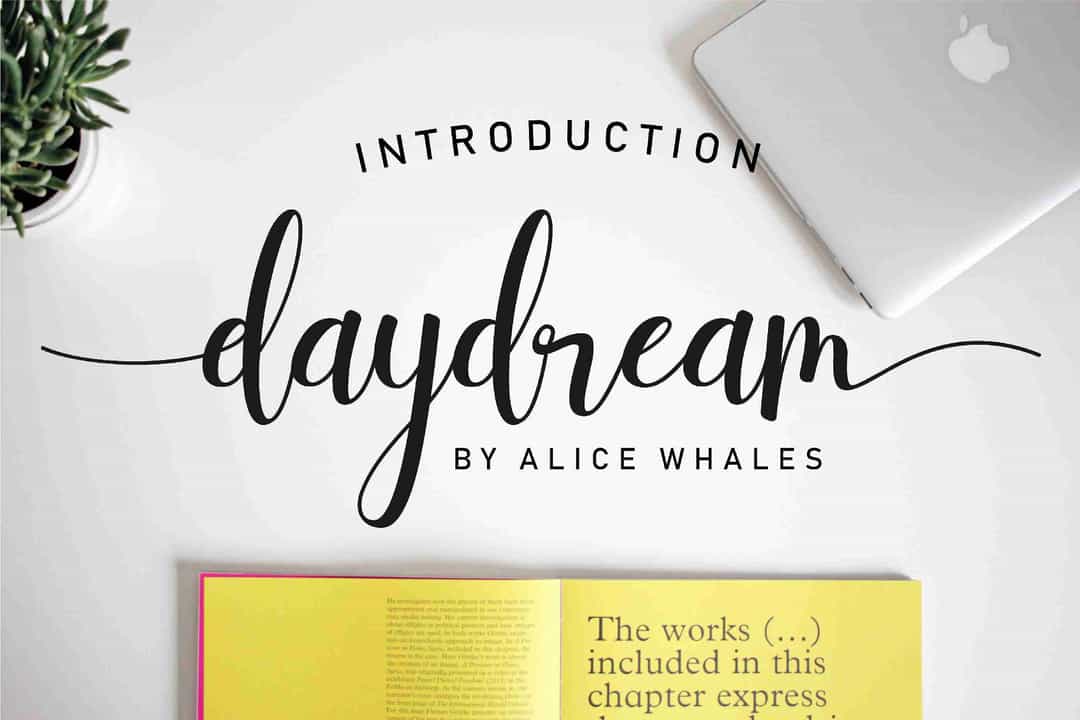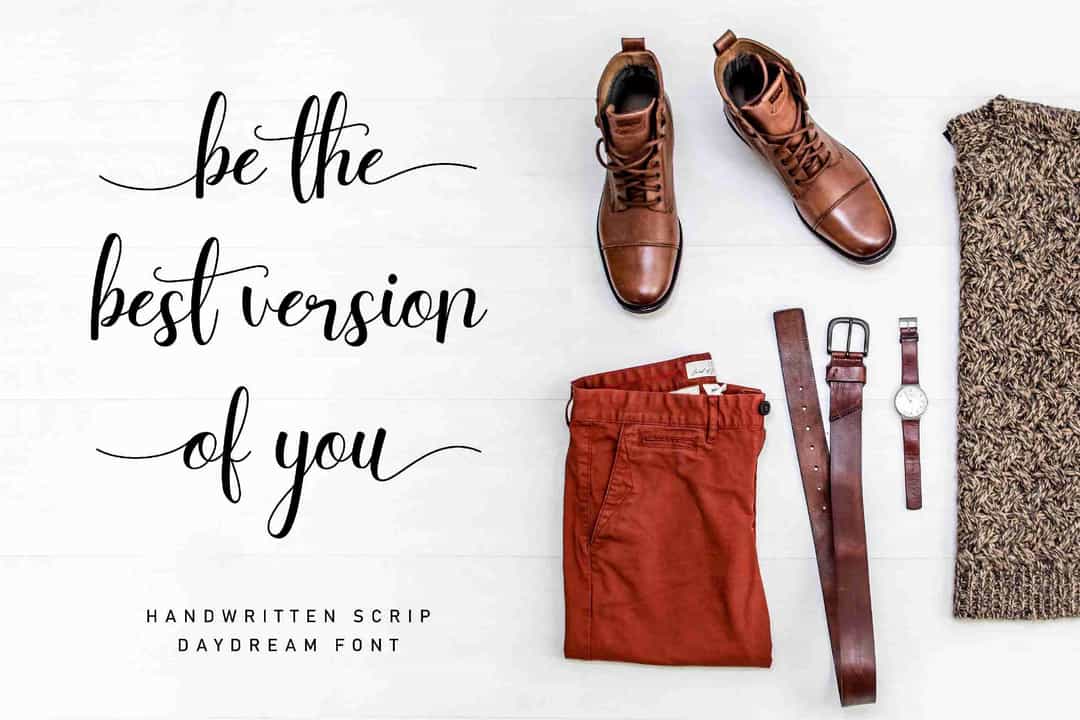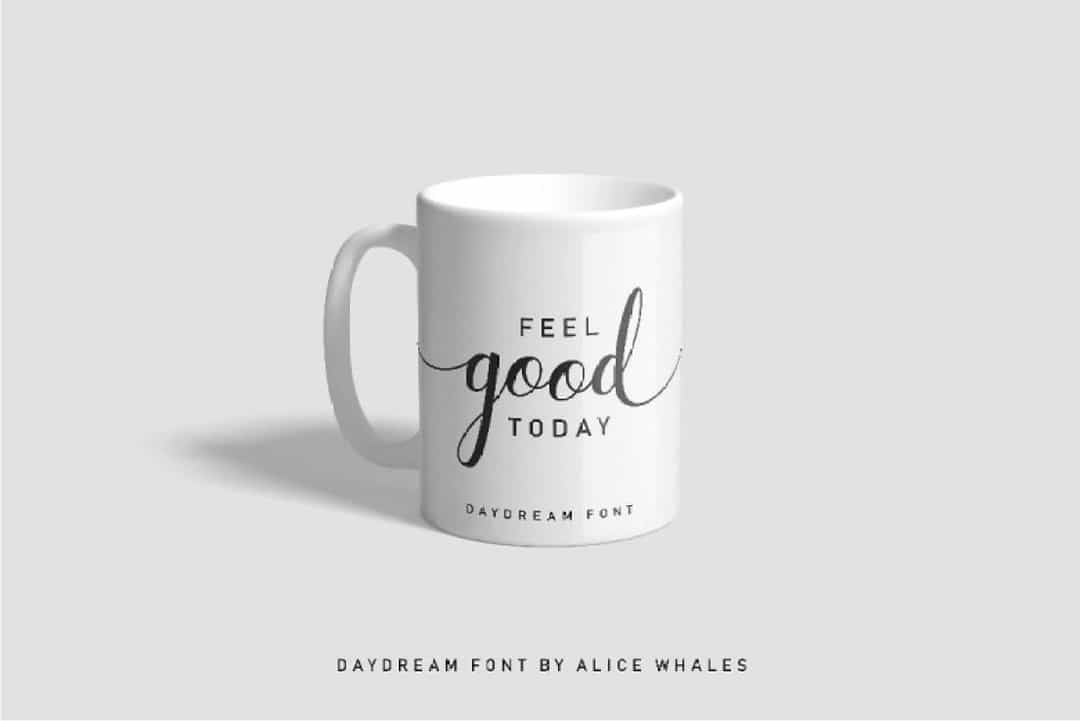
Daydream as designed and shared by Alice Whales! Use this contemporary modern calligraphy typeface on your brush lettering and traditional handwriting combine; you can use it for a wide range of branding, business card or poster design including stamps and quotes. Greeting cards as well! Don’t forget wedding season! Daydream- One headline Making an eye-catching choice of days for design work!